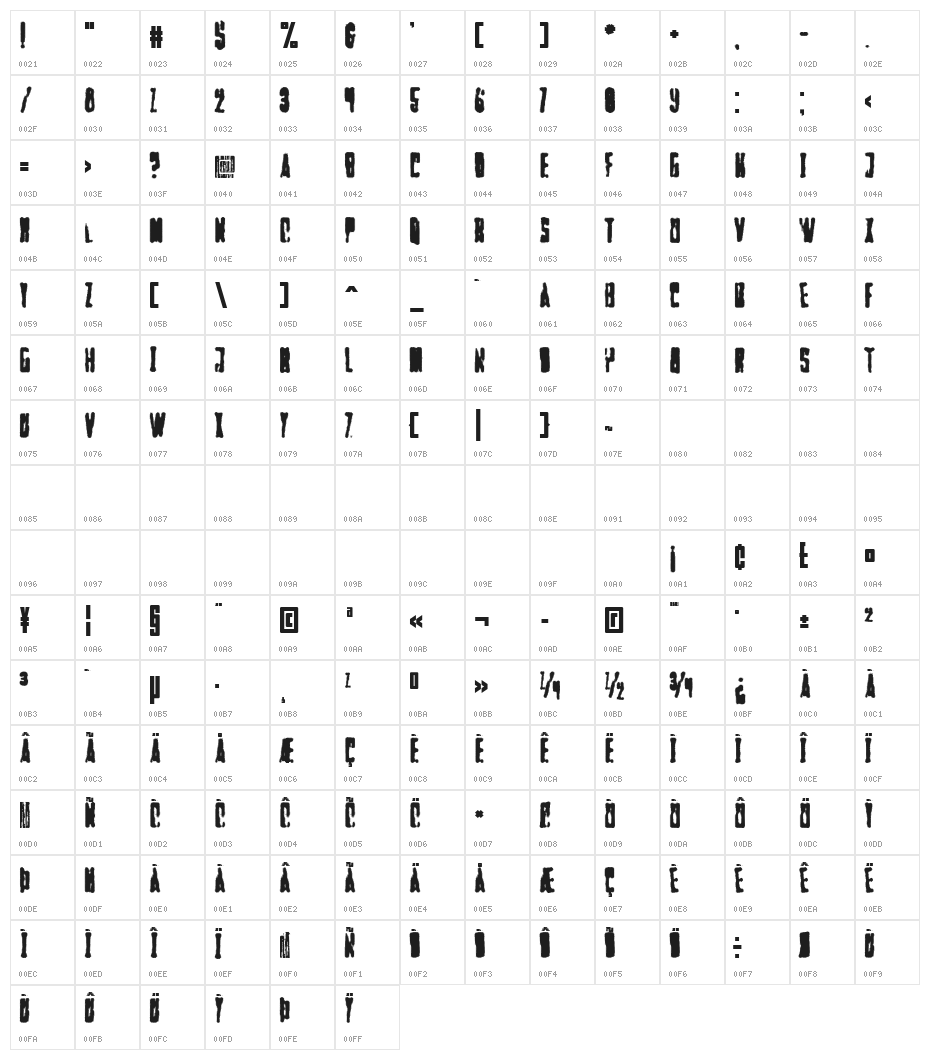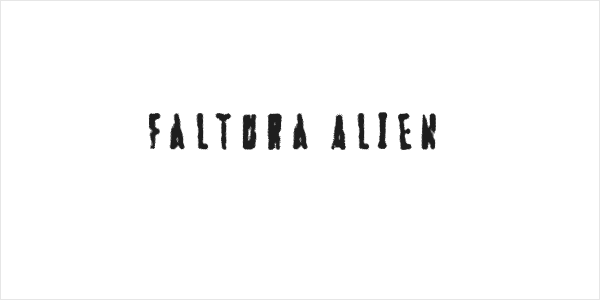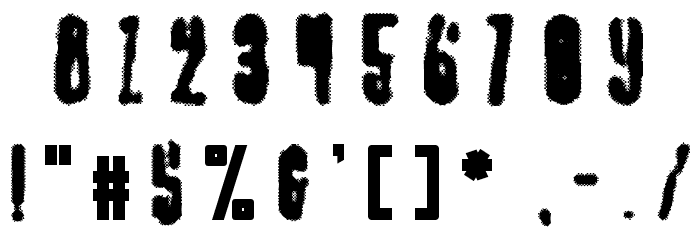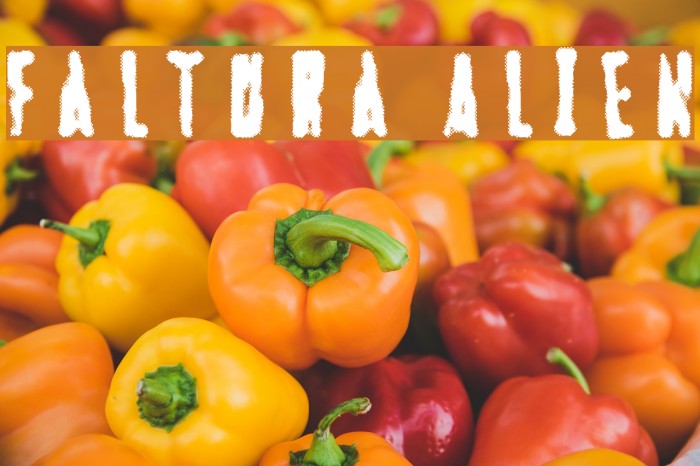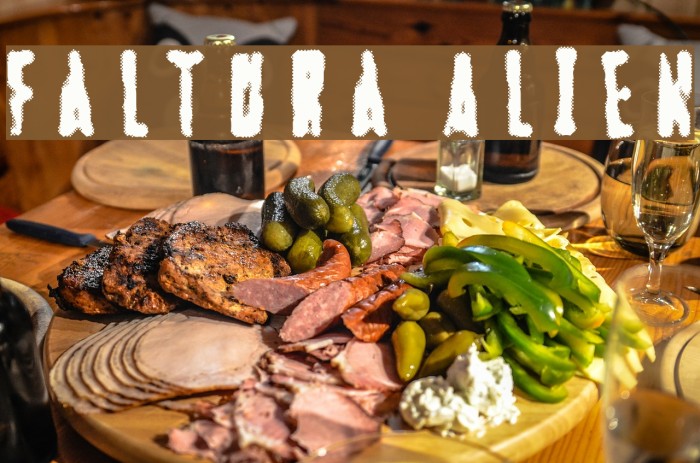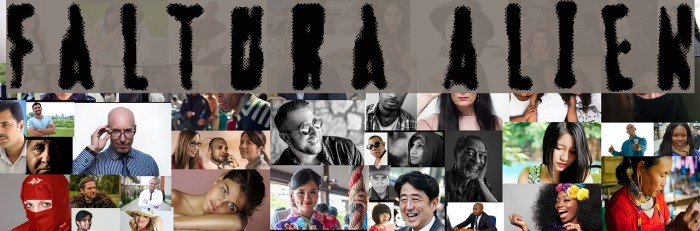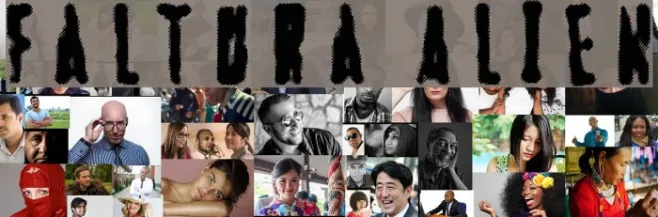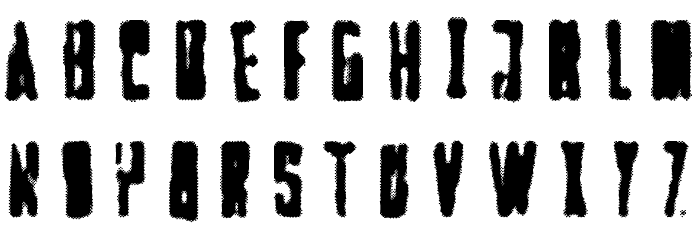
Faltura Alien Font
Faltura Alien Description
This font exhibits a unique, distressed style with irregular edges and a bold presence. The characters are heavily textured, giving them an almost eroded appearance, reminiscent of ancient or alien scripts. The uppercase and lowercase letters maintain a consistent height, contributing to a uniform look despite the rugged texture. Numbers and special characters follow the same design ethos, ensuring a cohesive visual experience. The font's boldness and distinct style make it stand out, ideal for projects that require a strong, unconventional aesthetic.
| Proposed Projects | Ideal for sci-fi themed designs, movie posters, video game graphics, or any project needing a bold, unconventional look. |